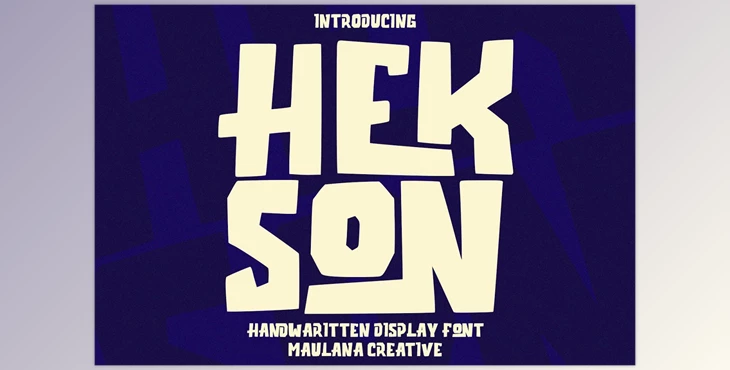
Hekson is a handwritten block display font. It has a bold stroke, fun characters, and Ligatures. For you to do a bit of artistic work. Hekson font is multilingual and supports more than 100languages. It is a great font for logo design, social media, and movie Titles or Books Titles, and a text that is short even a long text and is a great secondary text font with a serif or sans. Create stunning designs using Hekson font.